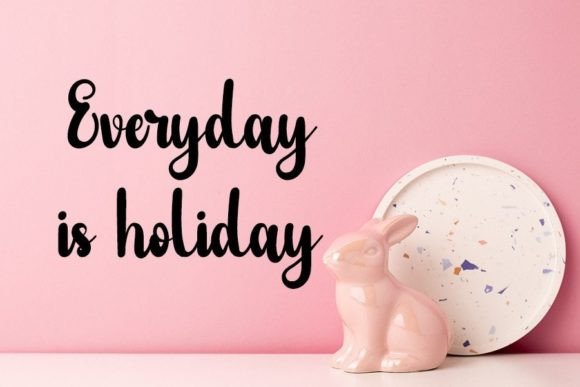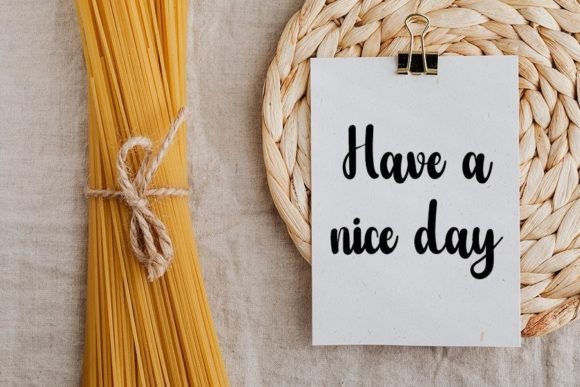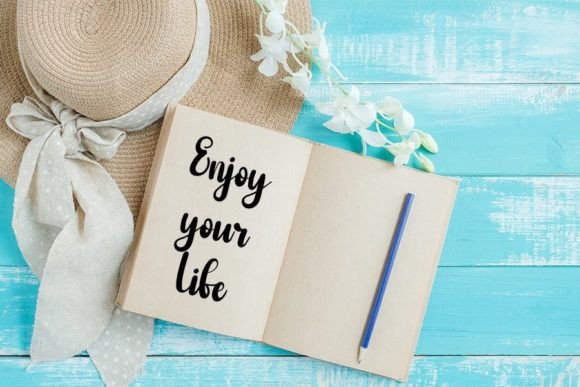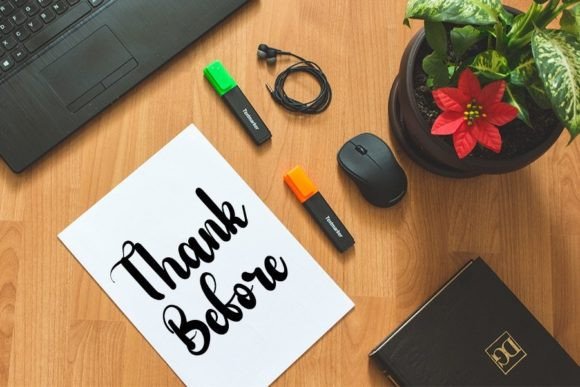
Treasure Font
About Treasure Font
“Treasure” is a welcoming handwritten font, thoughtfully crafted to become a beloved choice. It effortlessly combines classy calligraphic influences with a contemporary and fresh feel. Whether you’re seeking a friendly and stylish font for various design projects, “Treasure” offers a versatile and appealing option.
The font’s friendly handwritten style makes it suitable for a variety of applications, including branding, invitations, social media graphics, and more. Its balance of elegance and contemporary flair ensures that “Treasure” maintains a timeless charm while adapting to modern design trends.
The careful design of “Treasure” captures the essence of calligraphy, adding a touch of sophistication to your projects. The handwritten elements convey a sense of warmth and approachability, making the font an excellent choice for creating designs that resonate with a broad audience.
In the realm of branding, “Treasure” can be a valuable asset, offering a distinctive and friendly identity. Whether applied to logos, business cards, or promotional materials, the font’s versatility allows it to complement a range of brands and industries.
The PUA encoding feature enhances the user experience by providing easy access to a variety of glyphs and ligatures. This ensures smooth customization, allowing you to explore different letter combinations and design variations effortlessly, adding a unique touch to your creations.
In summary, “Treasure” is not just a font; it’s a design companion that brings a friendly and handwritten charm to your projects. Whether you’re working on branding, invitations, or any design that requires a blend of class and contemporary style, “Treasure” is designed to be a true favorite, making your creations stand out with a touch of warmth and sophistication.